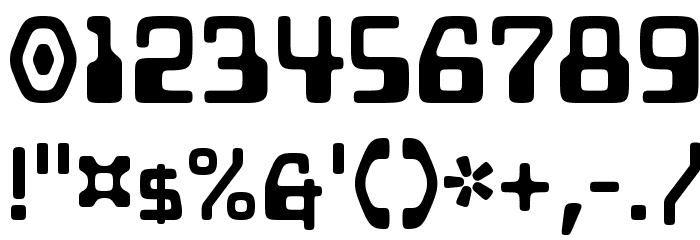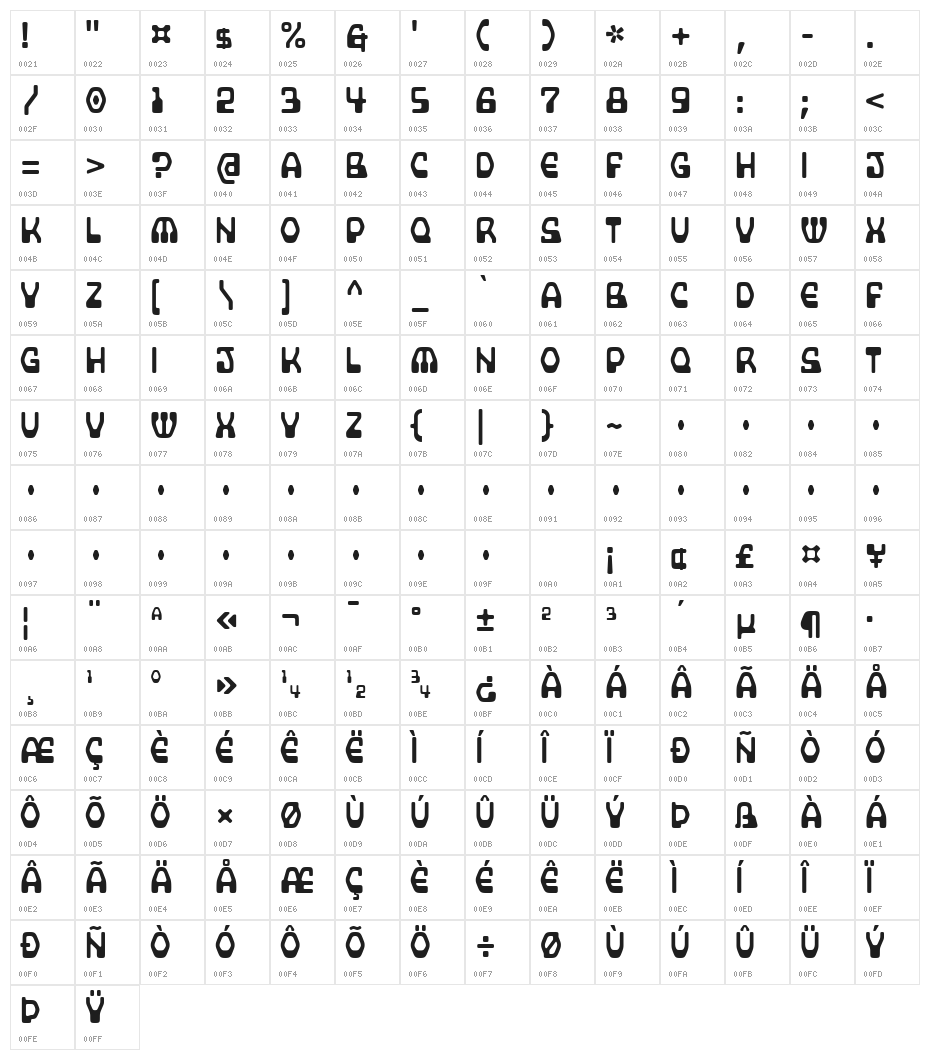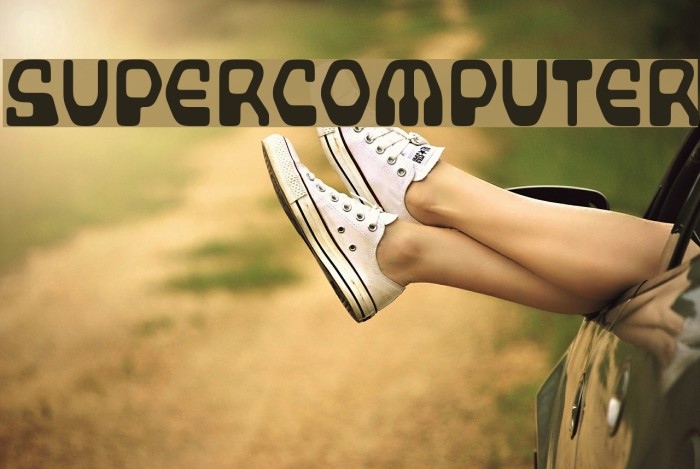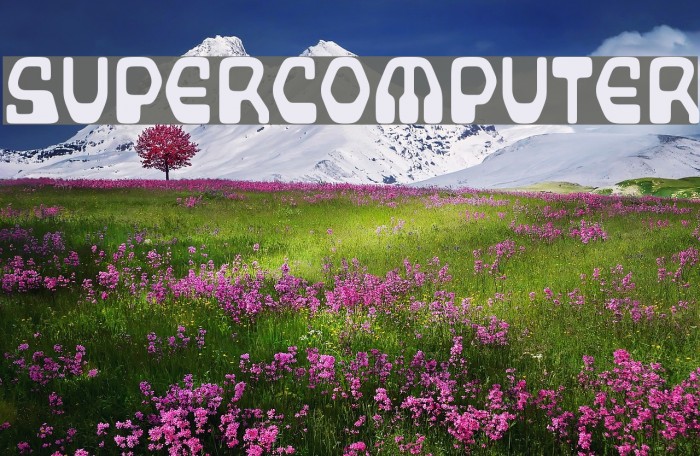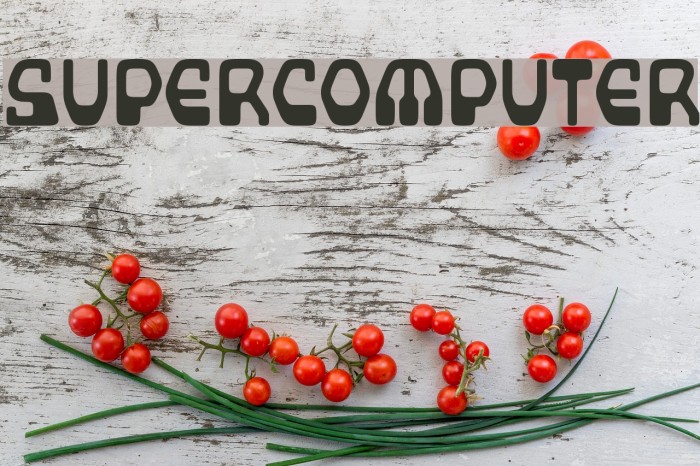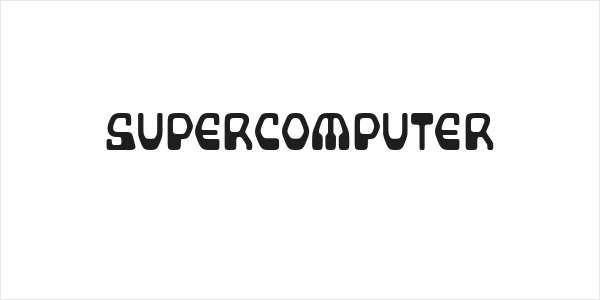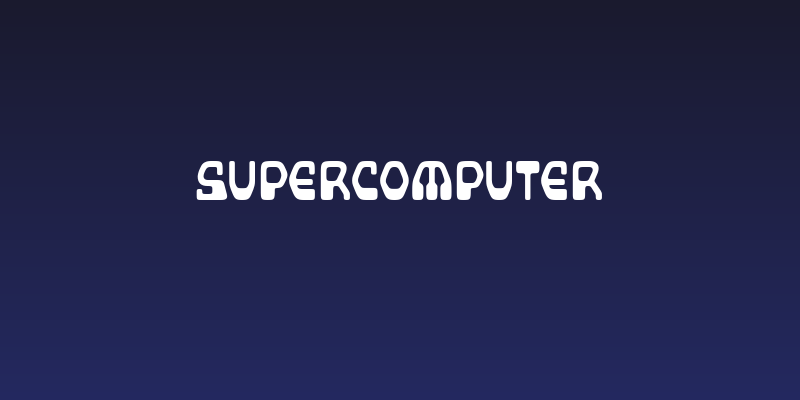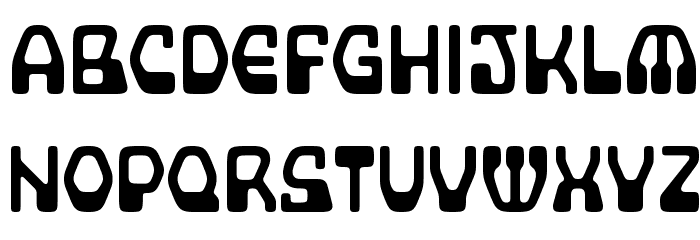
Supercomputer Font
Supercomputer Description
This font features a bold, futuristic design with rounded edges and a blocky structure. The characters are uniformly thick, creating a strong visual impact. The uppercase and lowercase letters maintain a consistent style, with the lowercase mirroring the uppercase in form. Numbers and special characters follow the same bold and rounded aesthetic, ensuring a cohesive look across all elements. The font's unique style is reminiscent of digital or technological themes, making it ideal for projects that require a modern and innovative appearance.
| Proposed Projects | Ideal for technology branding, video game titles, sci-fi posters, and digital interfaces. |